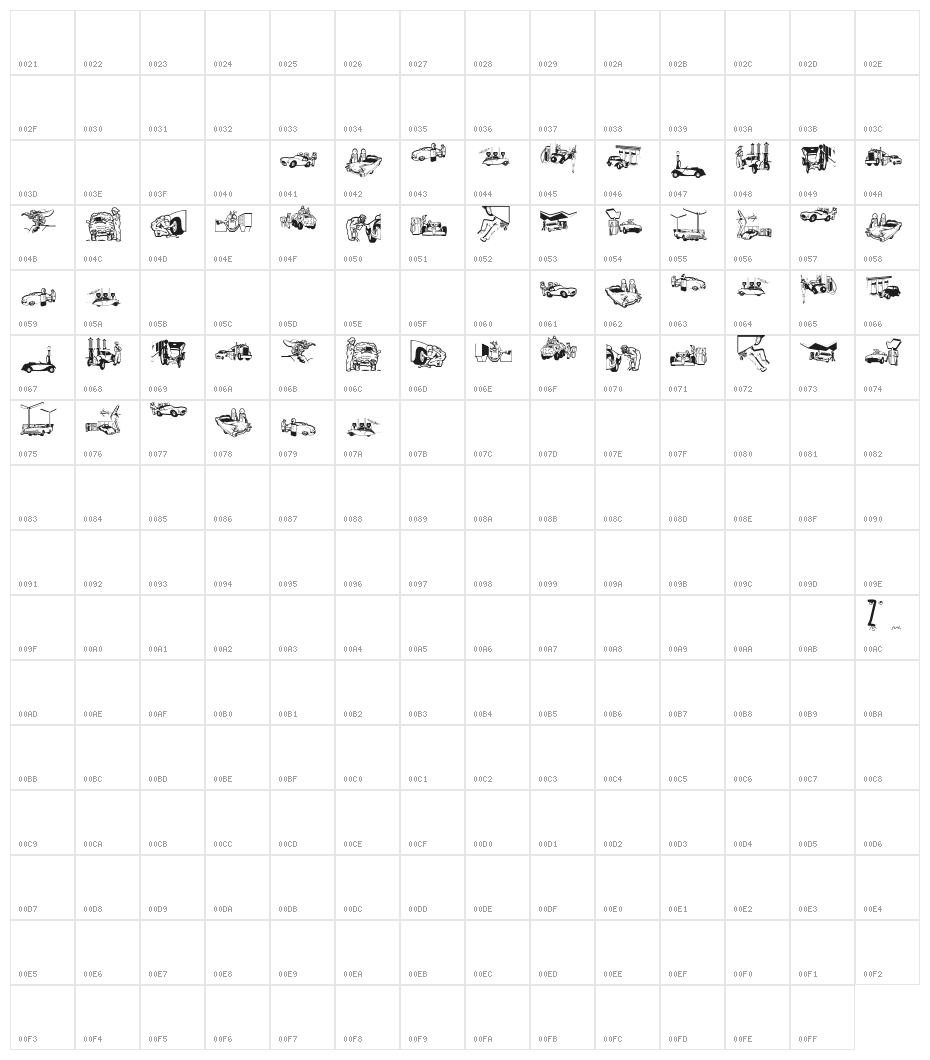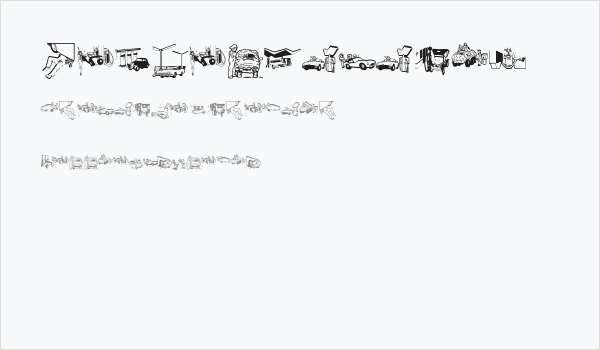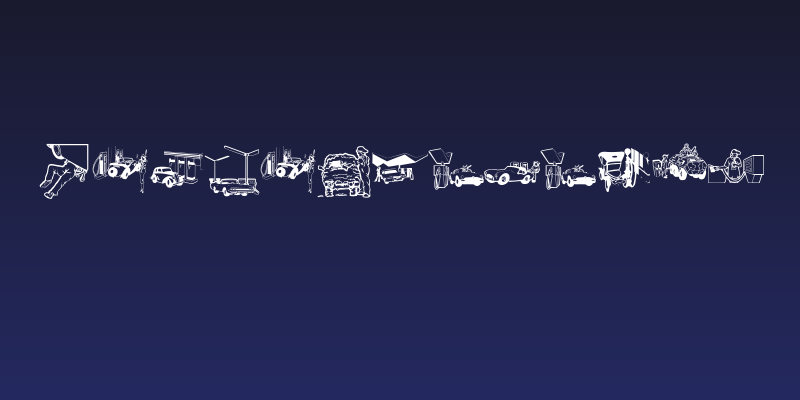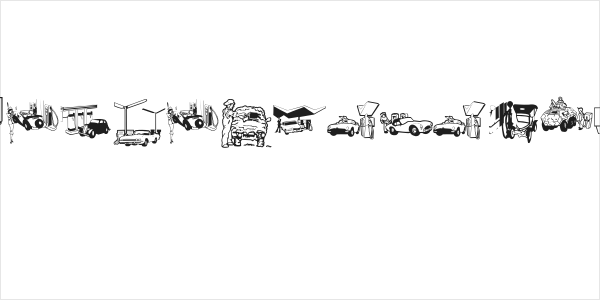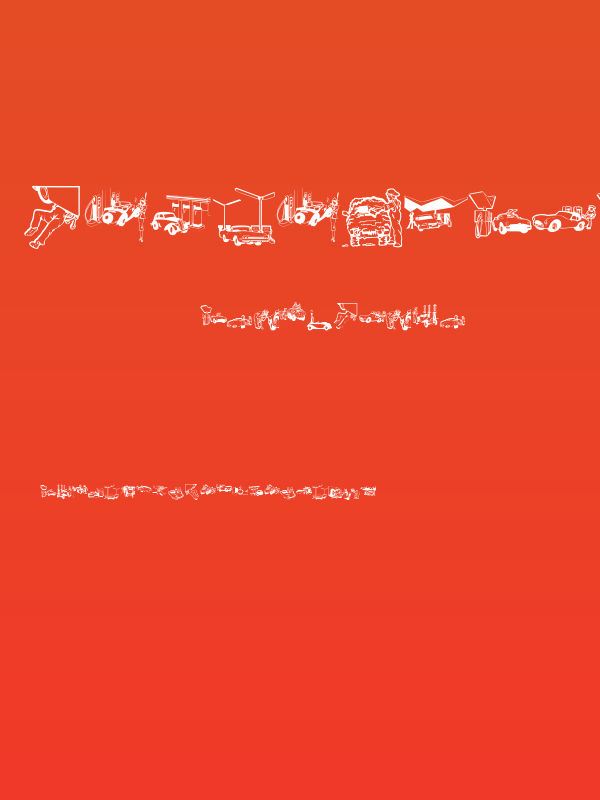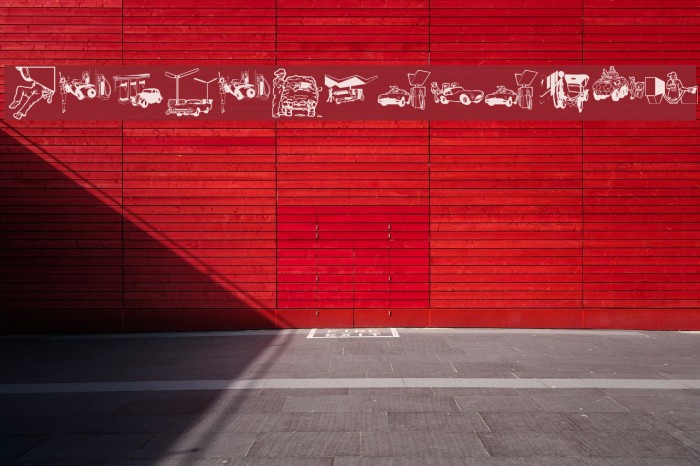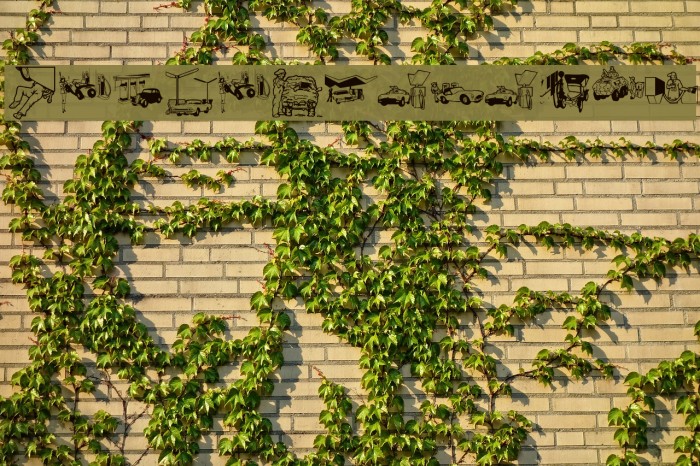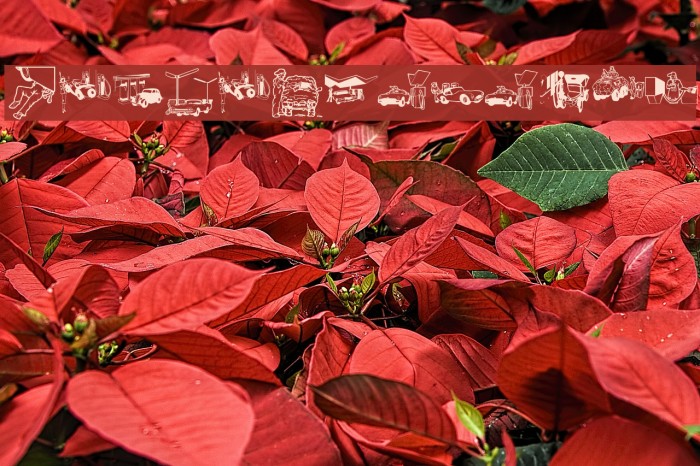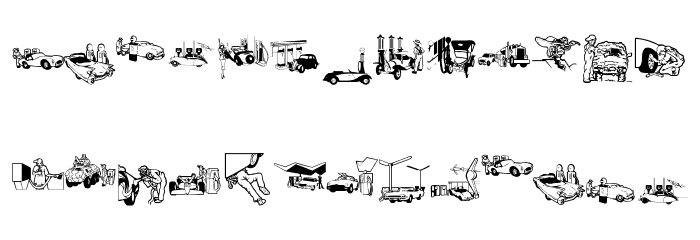
RefuelStation Font
RefuelStation Description
A highly decorative and illustrative font where each character is represented by a detailed black-and-white drawing related to refueling stations, cars, and automotive service scenes. The glyphs are pictorial rather than traditional letterforms, making them more suitable for thematic or novelty use.
| Overall Style | Decorative, Thematic, Illustrative |
| Use Case | Logos, Posters, Themed Graphics, Educational Visuals |
| Proposed Projects | Automotive event posters, themed party invitations, educational materials about cars or refueling, novelty signage. |